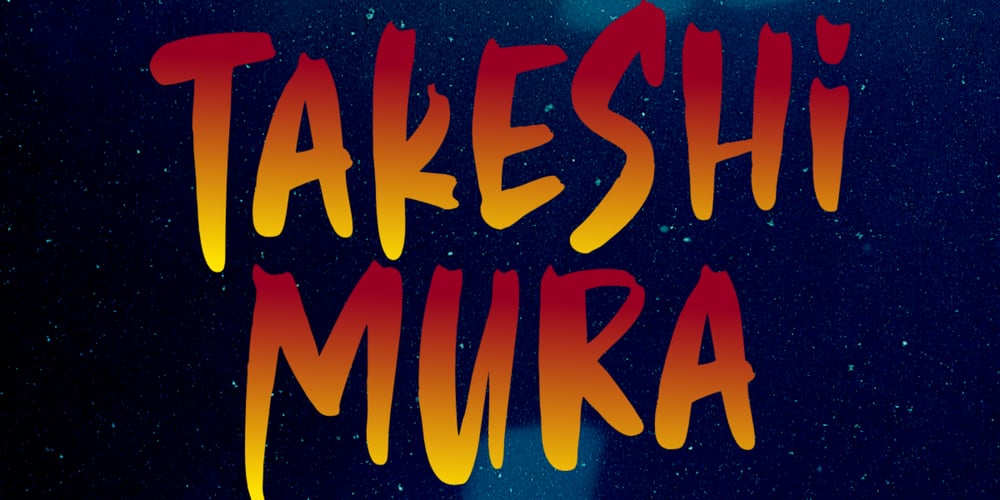
Takeshimura Font Family was designed by Aldy Sidik and published by Epiclinez. Takeshimura contains 1 styles and family package options. Takeshimura is a funky brush font with a very strong character. Very cool if use for logos, headlines, brandings, posters, apparel, etc.